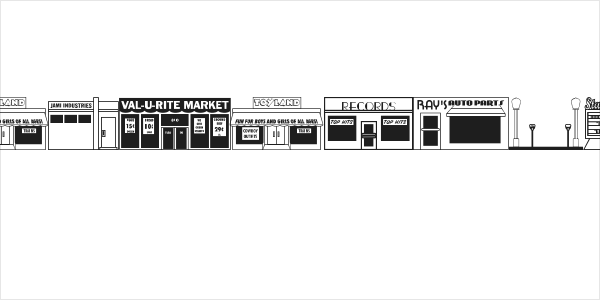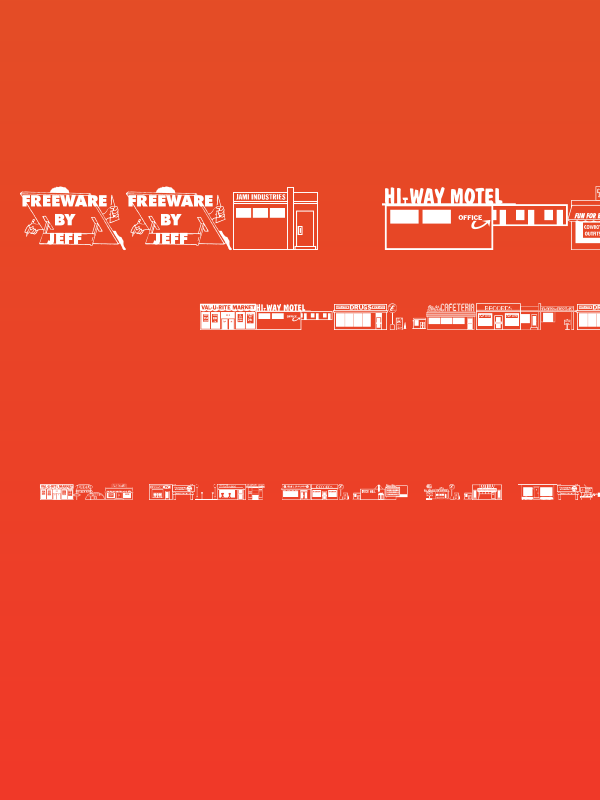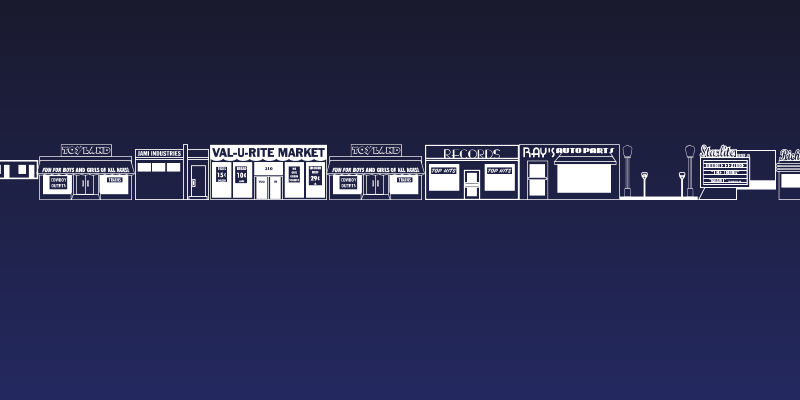
50's Yesterdings JL Font
50's Yesterdings JL Description
This design features a nostalgic depiction of mid-20th century American storefronts, capturing the essence of the 1950s with detailed illustrations of diners, motels, and markets. Each element is meticulously crafted to evoke a sense of nostalgia, with bold signage and architectural styles typical of the era. The artwork is rich in detail, showcasing various businesses and their distinct signage, which are reminiscent of the vibrant commercial strips of the past. The design is perfect for creating a retro atmosphere, offering a glimpse into a bygone era with its charming and intricate representation of vintage Americana.
| Use Case | Decorative art, Themed events, Historical displays |
| Proposed Projects | Ideal for retro-themed designs, vintage posters, historical exhibits, or nostalgic branding projects. |